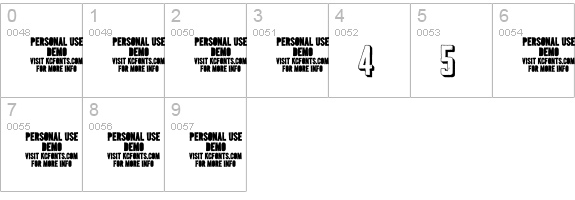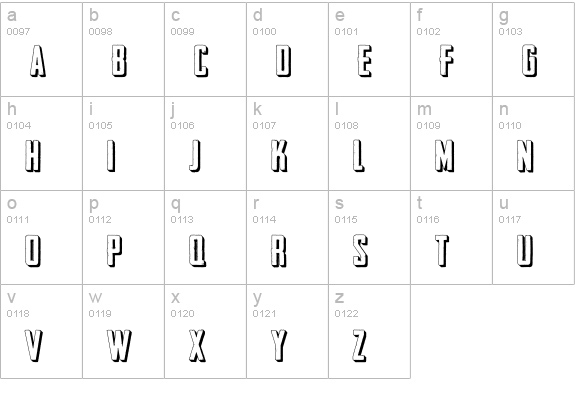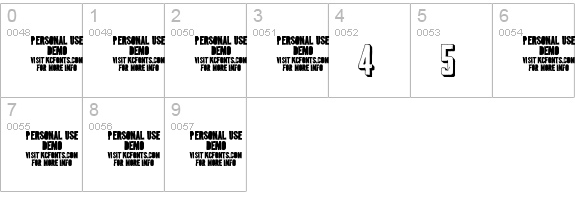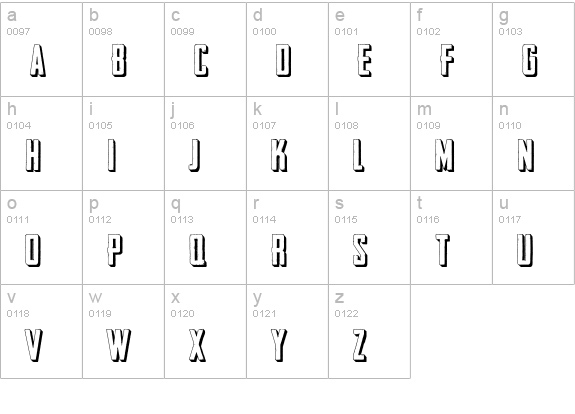
Outliner No. 45 DEMO font is a stunning typeface that captures the essence of modern design with its sleek and sophisticated letterforms. This font exudes elegance and professionalism, making it perfect for a wide range of creative projects. The unique characteristic of Outliner No. 45 DEMO font lies in its outlines, which give each letter a distinctive and eye-catching appearance. The precise lines and intricate details of this font make it stand out from the crowd, making a lasting impression on anyone who encounters it. What makes Outliner No. 45 DEMO font even more appealing is the fact that it is freely available to download at FontsMarket.com. This means that designers, artists, and creatives of all kinds can access and utilize this exceptional font without any cost or restrictions. Whether you're working on a professional presentation, a branding project, or even a personal creative endeavor, Outliner No. 45 DEMO font is sure to elevate your work to new heights. Its versatility and timeless appeal make it suitable for a variety of applications, from posters and advertisements to logos and packaging designs. With its clean and modern aesthetic, Outliner No. 45 DEMO font brings a touch of sophistication to any composition, adding a sense of professionalism and refinement. Its smooth curves and sharp edges create a harmonious balance that is both visually appealing and highly legible. Experience the power and beauty of Outliner No. 45 DEMO font by downloading it for free at FontsMarket.com. Unlock a world of creative possibilities and let this remarkable typeface elevate your design projects to new levels of excellence.